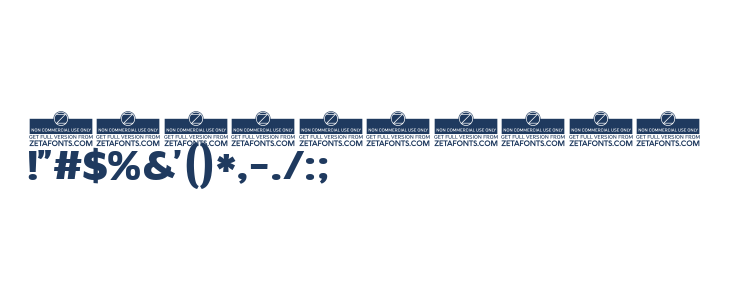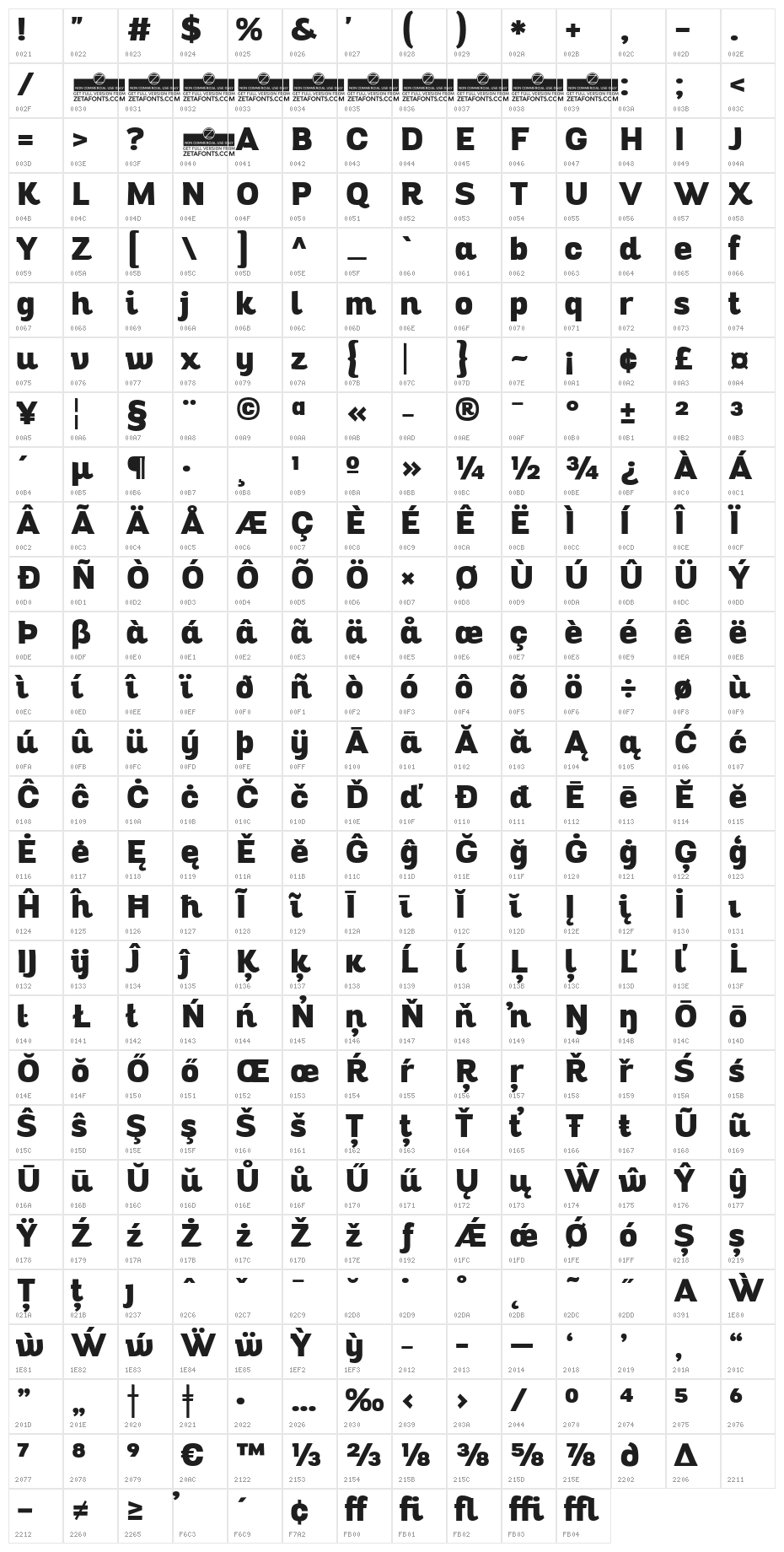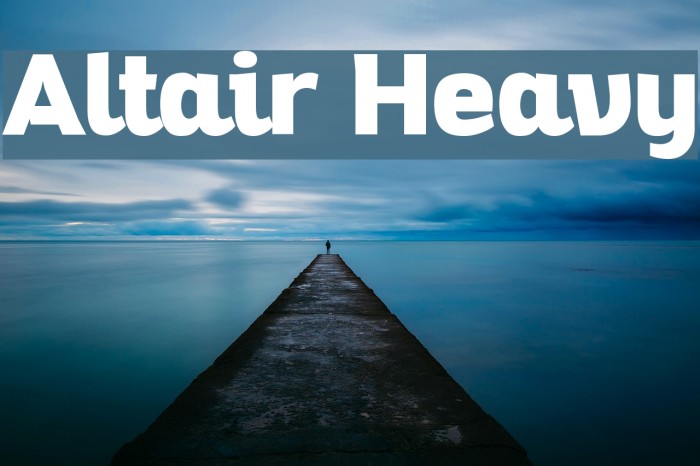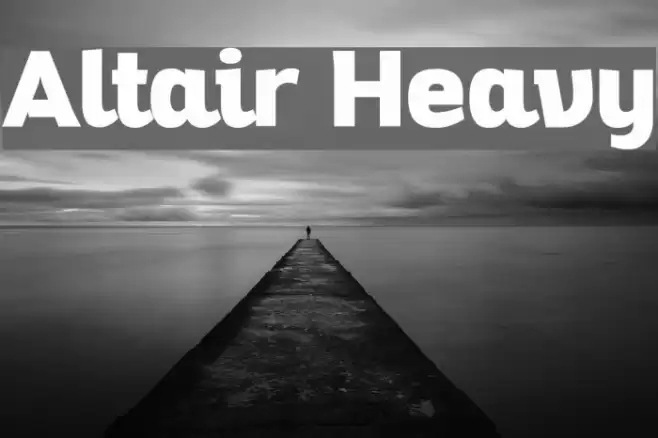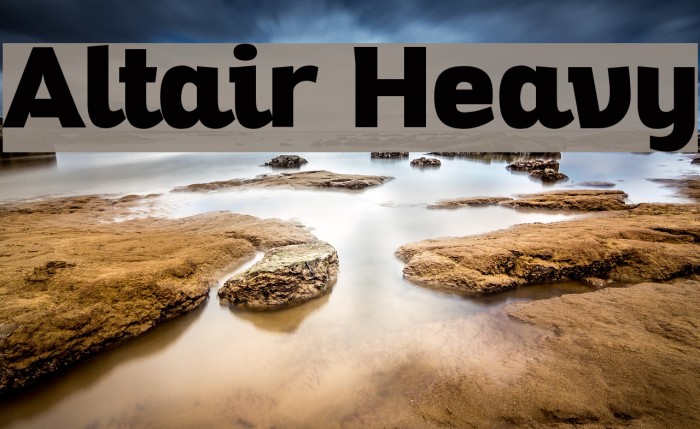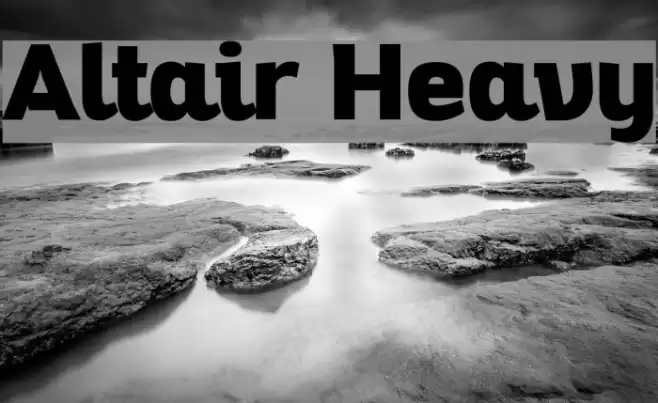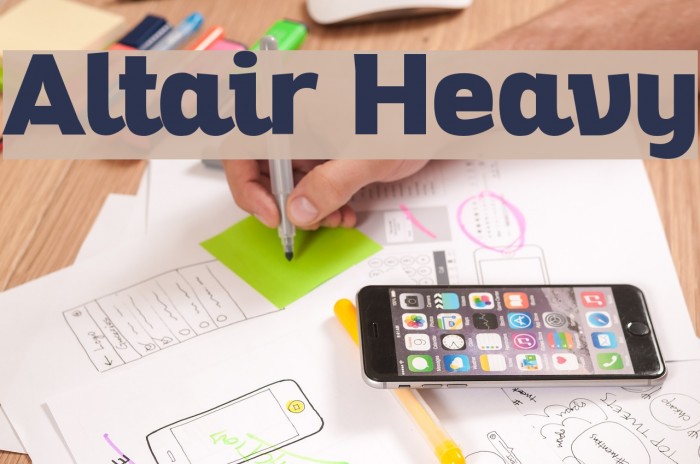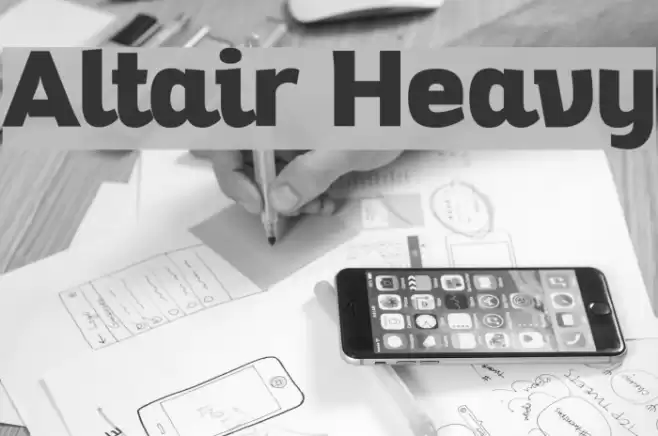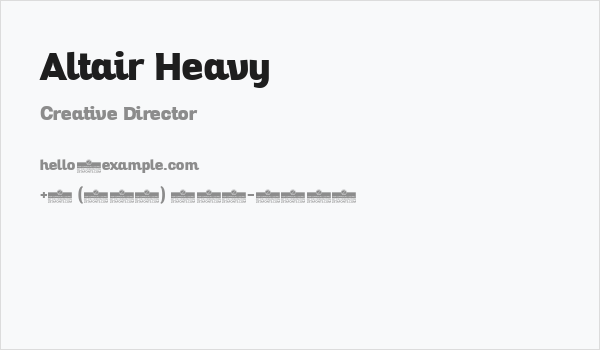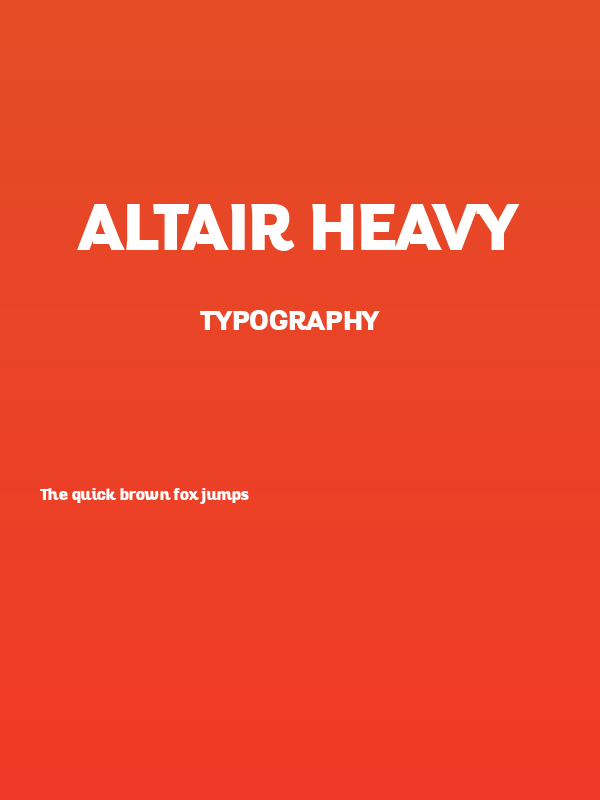
Altair Heavy Font
Altair Heavy Description
This typeface features bold, heavy strokes that give it a strong and impactful presence. The uppercase letters are robust and commanding, while the lowercase letters maintain a consistent weight, offering a harmonious balance. The rounded edges of certain characters add a touch of softness to the otherwise solid design. The numerals and special characters are equally bold, ensuring uniformity across all glyphs. This font's design is well-suited for making a statement, with its thick lines and clear legibility.
| Proposed Projects | Ideal for headlines, posters, branding, and any design that requires a strong visual impact. |